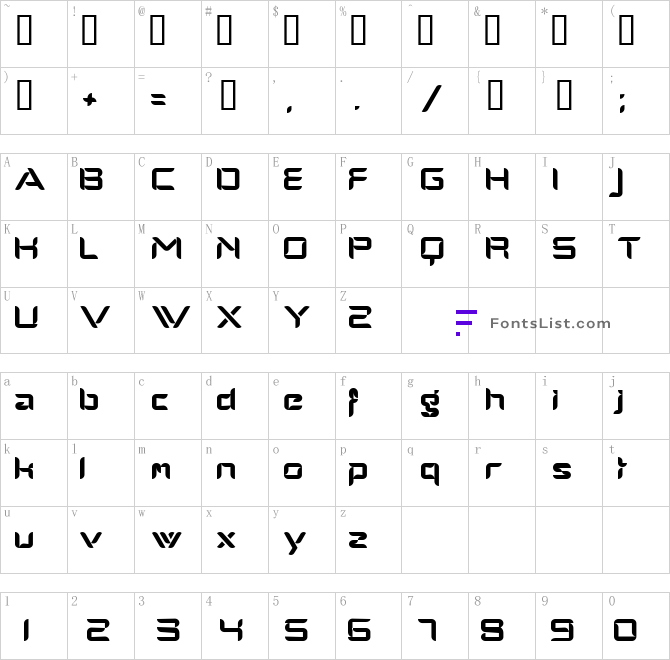
- Font Name:AlphaMaleModern
AlphaMaleModern.ttf is a very beautiful artistic font, AlphaMaleModern.ttf is widely used in the design and printing of various books and pictures,AlphaMaleModern.ttf has a strong visual impact,AlphaMaleModern.ttf is a commonly used font in newspapers, magazines and books, and is used in posters, e-commerce Poster design, store design, logo design, font design and other fields.AlphaMaleModern.